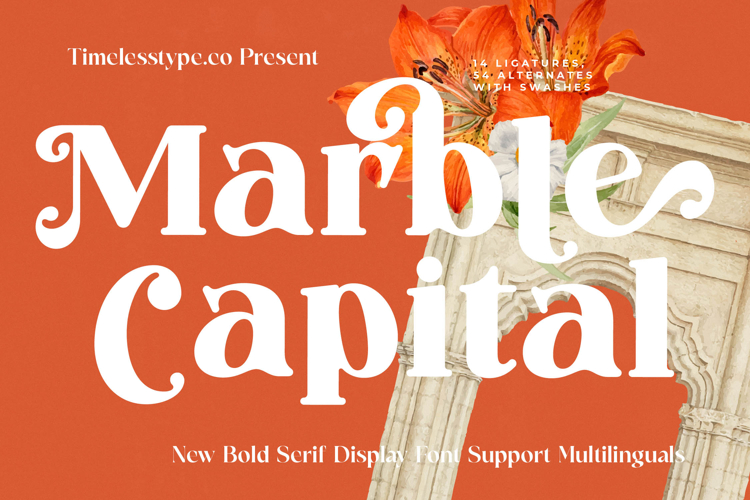
Marble Capital - New Bold Serif Display
Elevate your designs with unparalleled sophistication. Introducing Font Marble Capital - New Bold Serif Display , a typeface meticulously crafted to command attention and convey timeless elegance. This bold serif display font blends classic grandeur with contemporary flair, making it an indispensable asset for projects demanding a touch of luxury and distinguished presence. Its confident, yet refined, letterforms immediately capture the eye, establishing an unmistakable visual identity.
Experience a masterpiece of typographic artistry. Font Marble Capital - New Bold Serif Display features a stunning blend of high-contrast strokes and gracefully curved serifs, creating a harmonious visual rhythm. Each character is imbued with a sense of deliberate craftsmanship, further enhanced by its rich offering of 14 ligatures and 54 alternates with swashes. These opulent details provide unmatched creative flexibility, allowing designers to sculpt truly unique and memorable headlines, logos, and branding elements.
Unleash the power of luxury in your visual communications. Font Marble Capital - New Bold Serif Display is truly perfect for luxury branding, high-end packaging design, and sophisticated editorial layouts. Its commanding presence makes it ideal for magazine mastheads, prestigious invitations, impactful advertising campaigns, and any project where an air of exclusivity and refinement is paramount. This font ensures your message is not just read, but felt.
Expand your reach with global design integrity. With its extensive multilingual support, Font Marble Capital - New Bold Serif Display adapts seamlessly across global markets, making it incredibly versatile for international projects. This ensures your brand resonates universally without compromising its elegant aesthetic. Invest in Font Marble Capital - New Bold Serif Display to imbue your work with enduring style and a truly professional, high-impact impression that transcends borders.